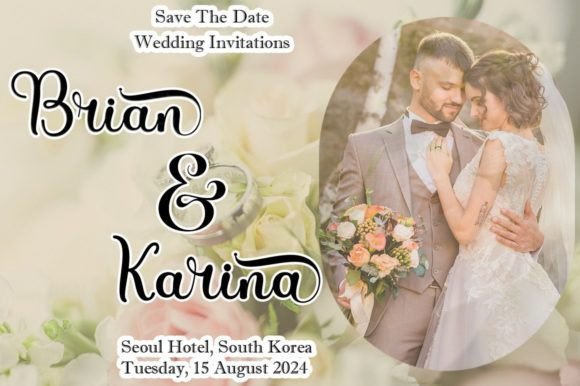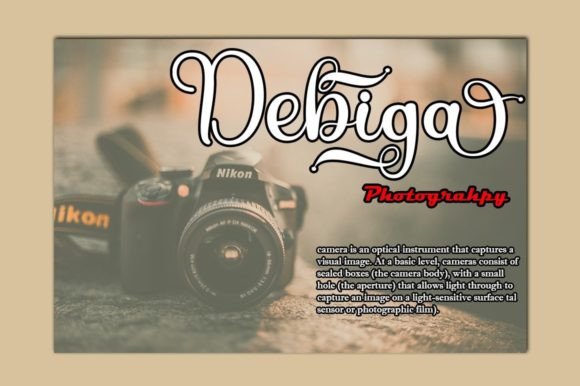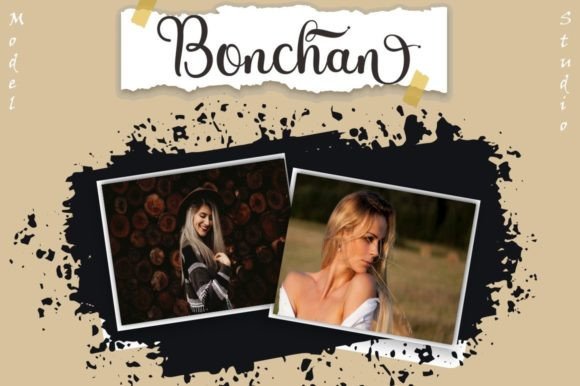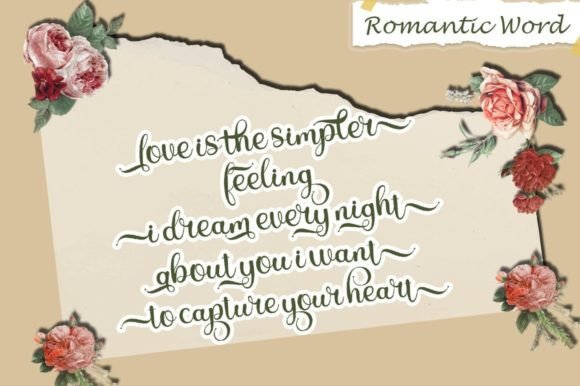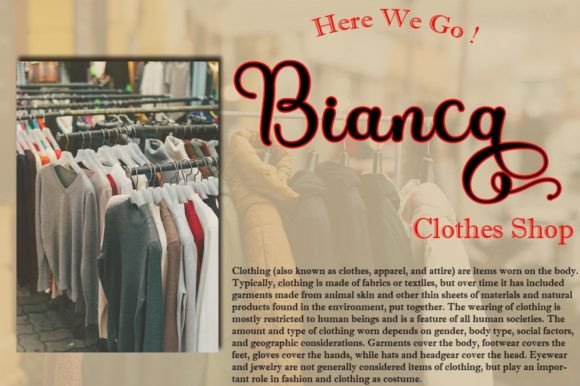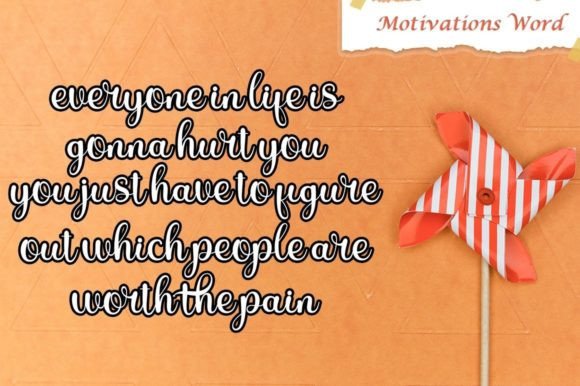
Introduction to Kaythia Font
Kaythia is a beautiful and modern handwritten font perfect for web, prints, wedding invitations, wedding suites, stationery, packaging, logos, greeting cards, quotes, social media graphics, and many more.
Key Features of Kaythia Font